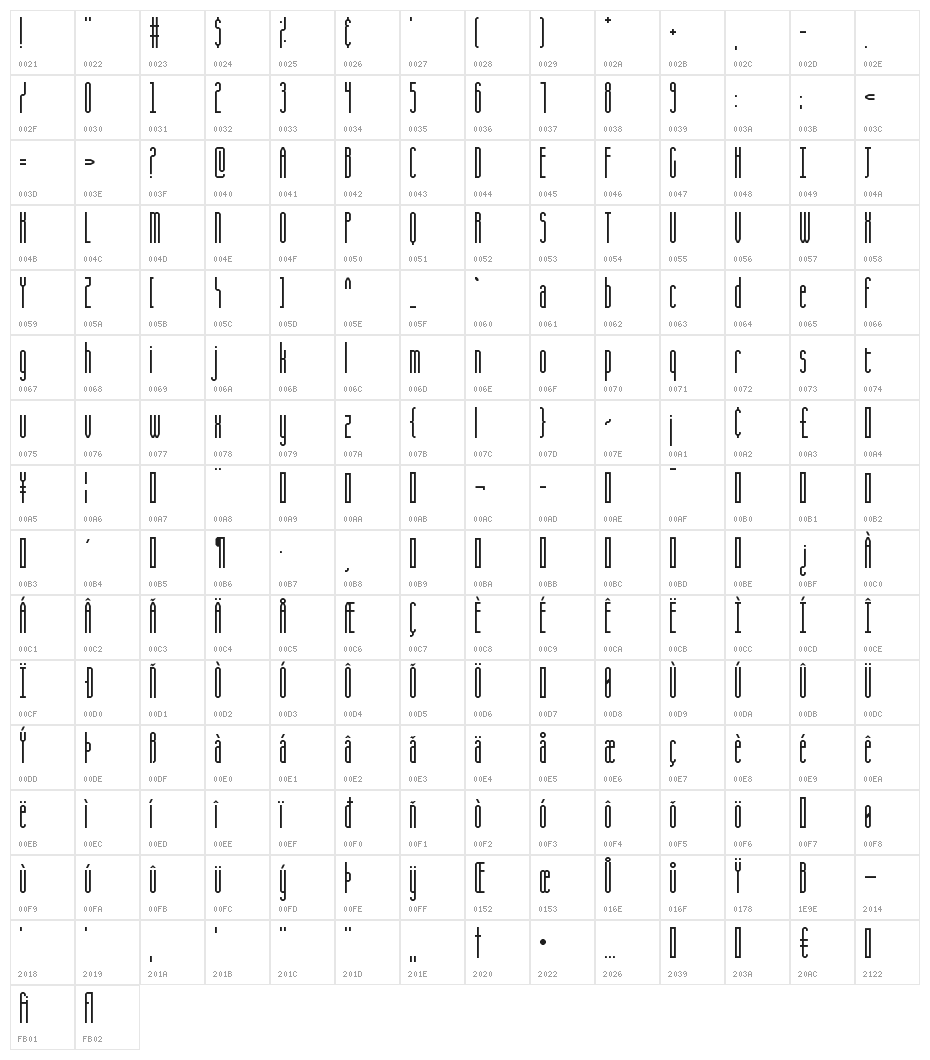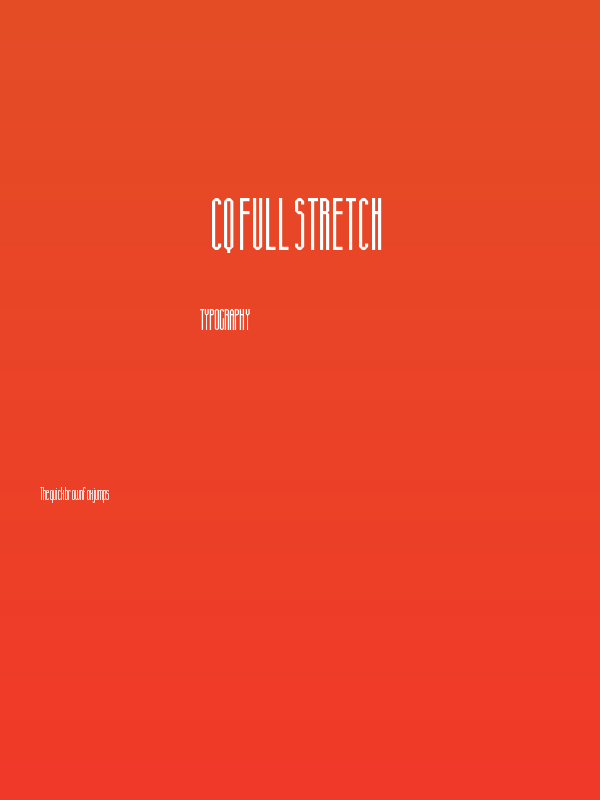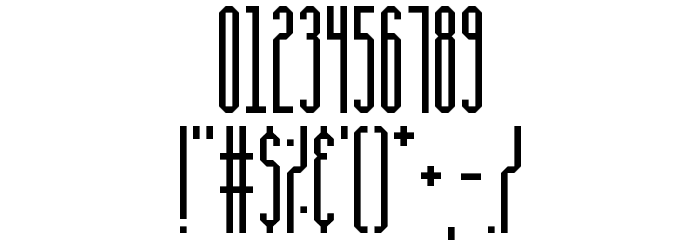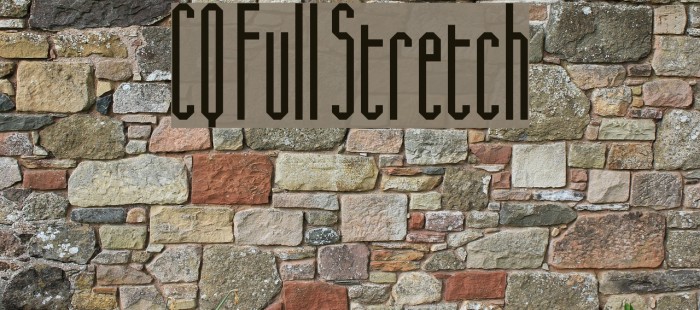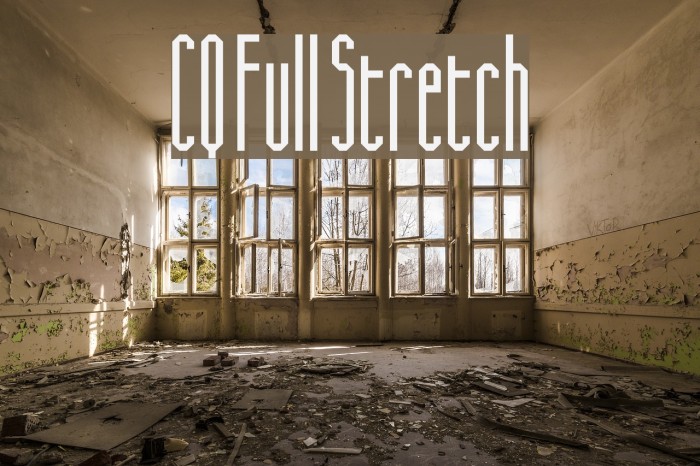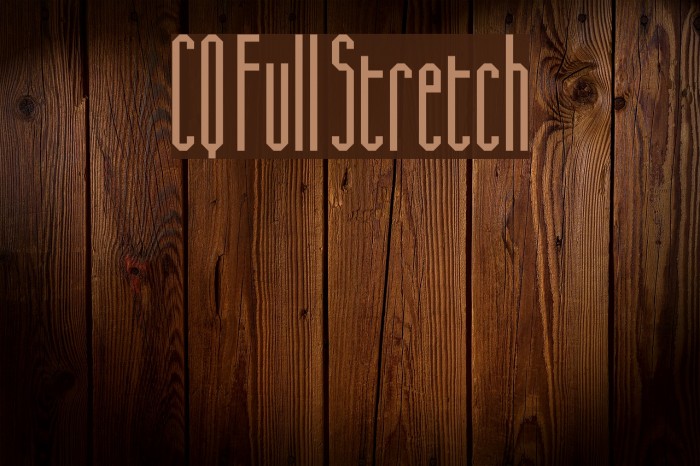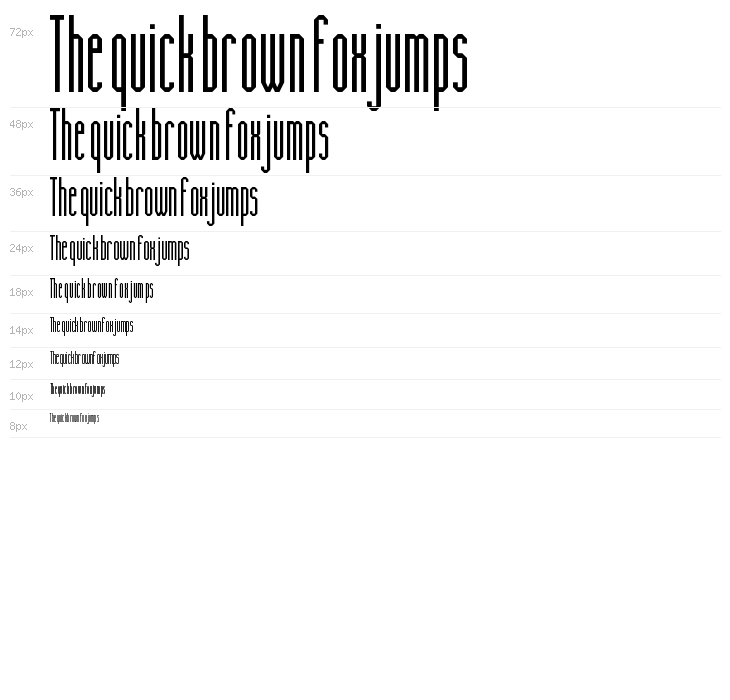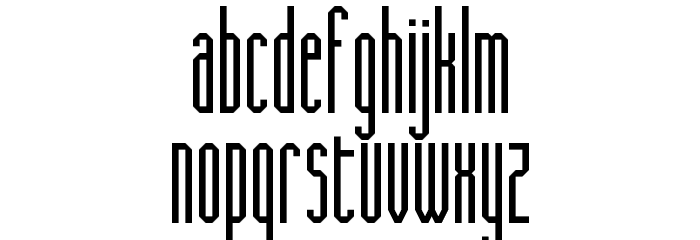
CQ Full Stretch Font
CQ Full Stretch Description
This font features an elongated and narrow design, characterized by its tall and slender letterforms. The vertical emphasis is pronounced, giving it a distinct and modern appearance. The strokes are consistent in width, contributing to a uniform and clean look. The uppercase and lowercase letters maintain a cohesive style, with sharp angles and minimal curves. Numbers and special characters follow the same aesthetic, ensuring a harmonious overall presentation. This font's unique structure makes it stand out, offering a contemporary and stylish option for various design needs.